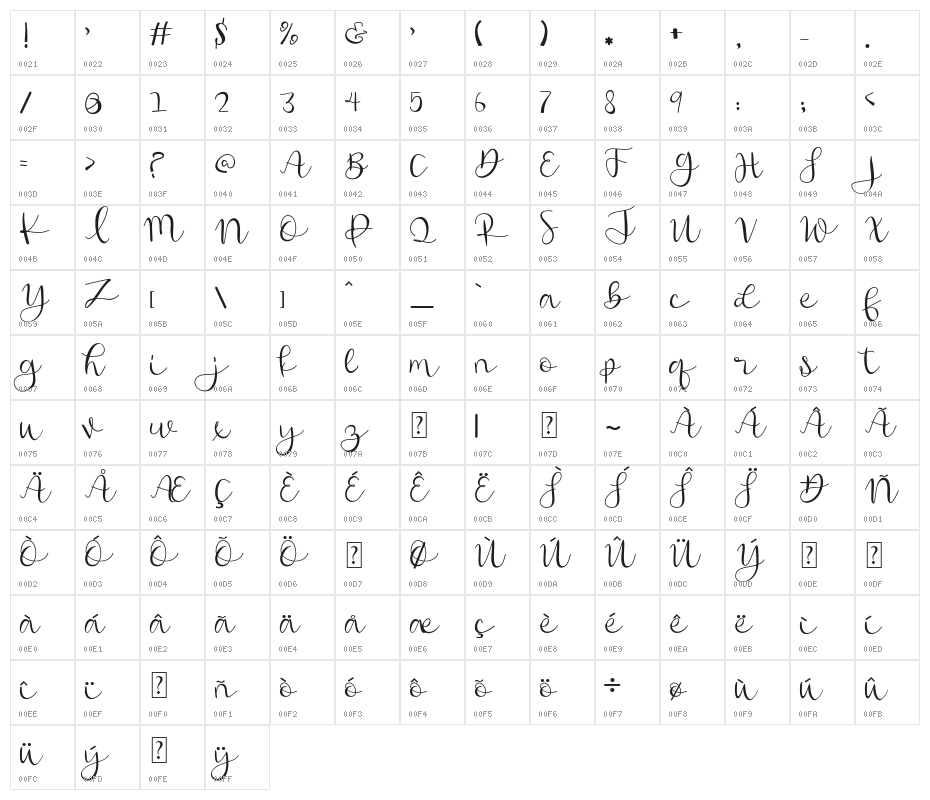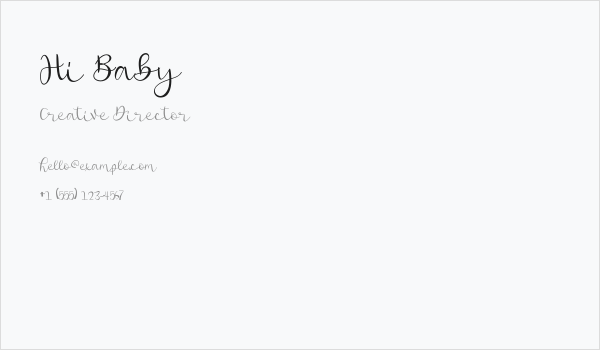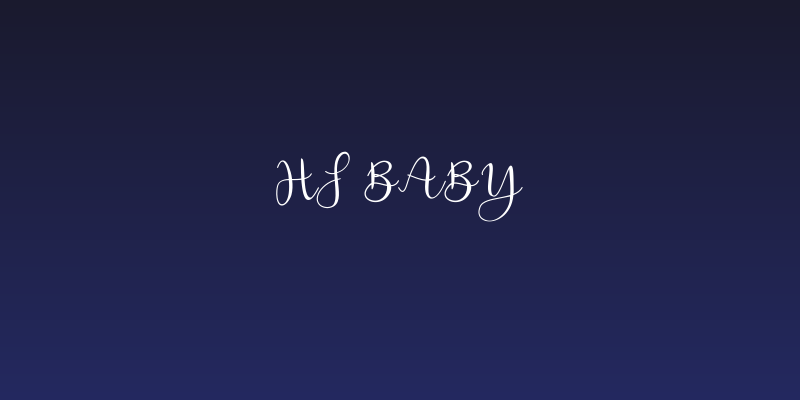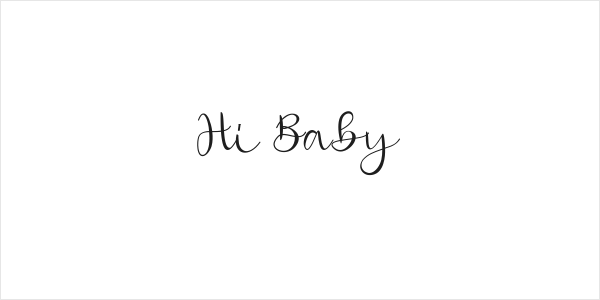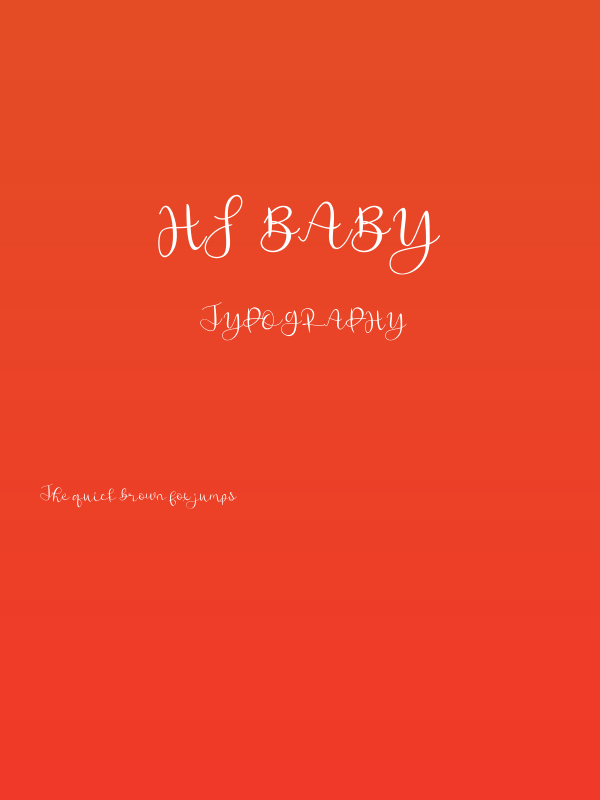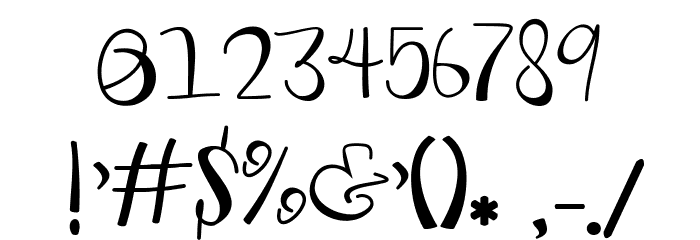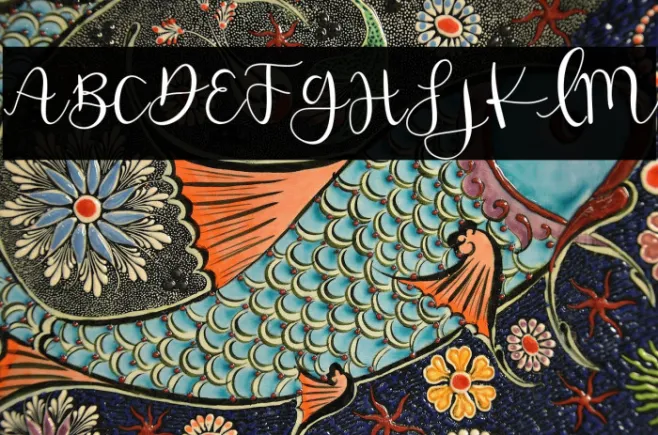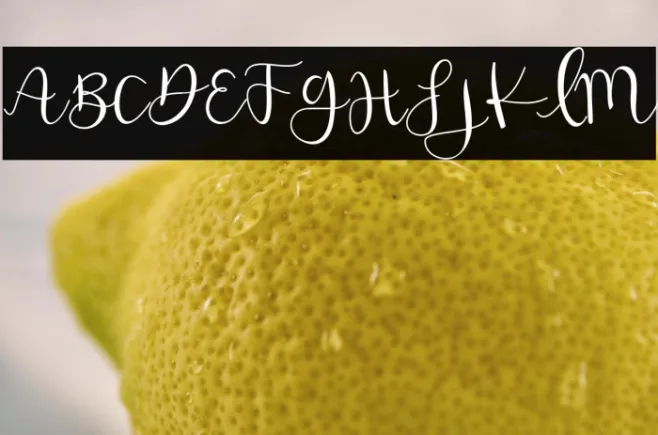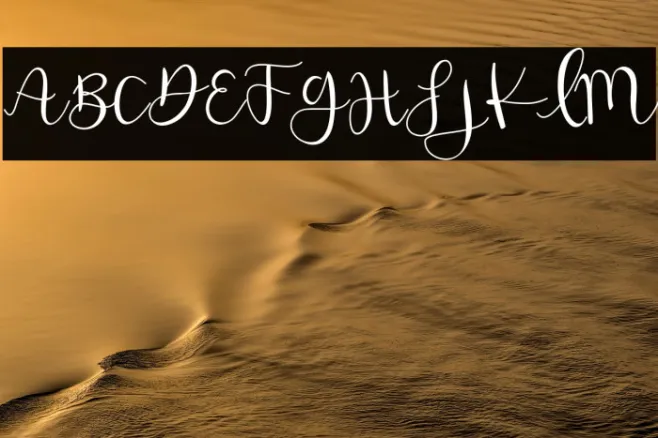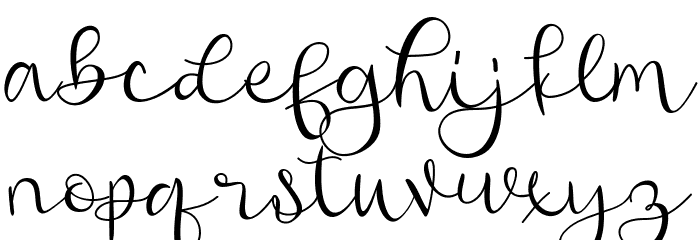
Hi Baby Font
Hi Baby Description
This font features a playful and elegant script style, characterized by its flowing, cursive letterforms. The uppercase letters are bold and expressive, with exaggerated loops and swashes that give a sense of movement and grace. The lowercase letters maintain a consistent style, with smooth, connected strokes that enhance readability while retaining a whimsical charm. Numbers are slightly more structured, providing a nice contrast to the letters. Special characters are creatively designed, adding a unique flair to the overall aesthetic. This font is perfect for projects that require a touch of elegance and playfulness.